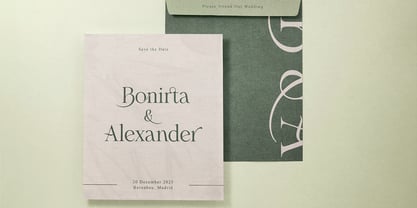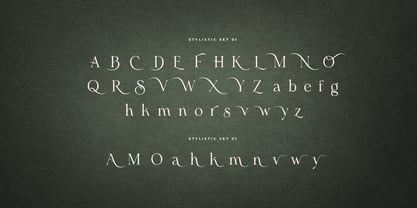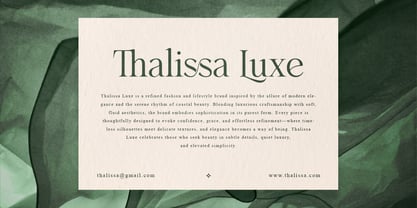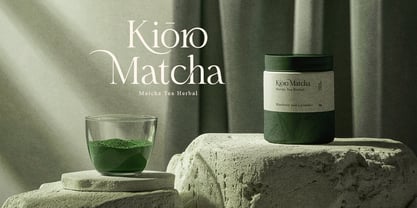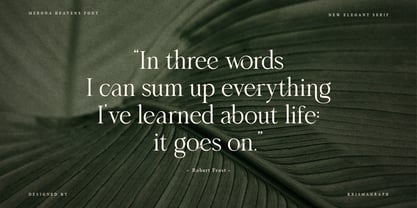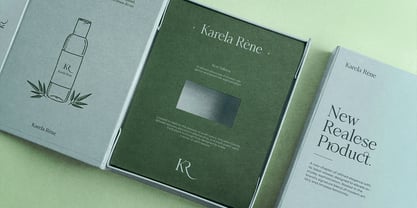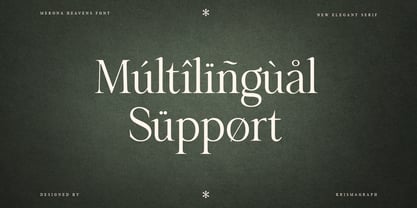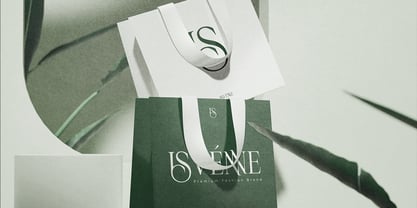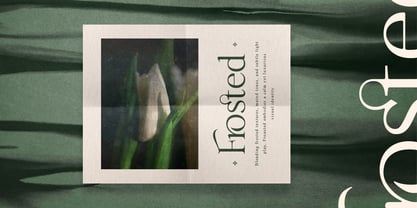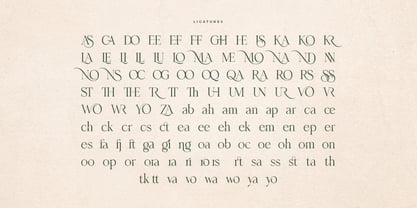
Merona Heavens Basic
La familia tipográfica Merona Heavens Basic fue diseñada por Ratna Krismawati y publicada por Krismagraph. Merona Heavens Basic contiene 1 estilos.
Merona Heavens is a Modern Ligature Serif Font. Its soft curves mixed with high contrast glyphs, give it a feminine and masculine quality. It comes with 112 unique ligatures and 47 alternates. Great in layout design for quotes or body copy, best used as a display for headings, logos, branding, magazines, product packaging, and invitations. Accessible in Adobe Illustrator, Adobe Photoshop, Adobe InDesign, and even work on Microsoft Word. PUA Encoded Characters – Fully accessible without additional design software. Fonts include multilingual support. Image used: All photographs/pictures/vectors used in the preview are not included, they are intended for illustration only. Feel free to follow, like, and share. Thanks so much for checking out my shop!